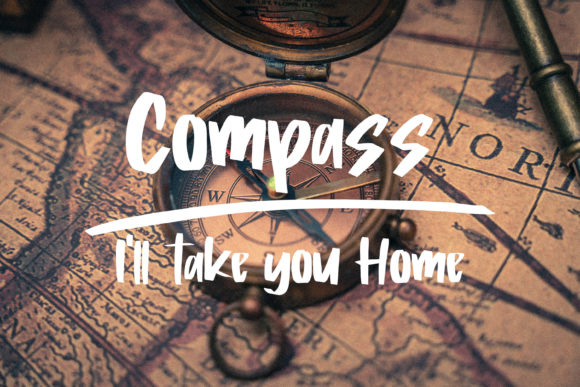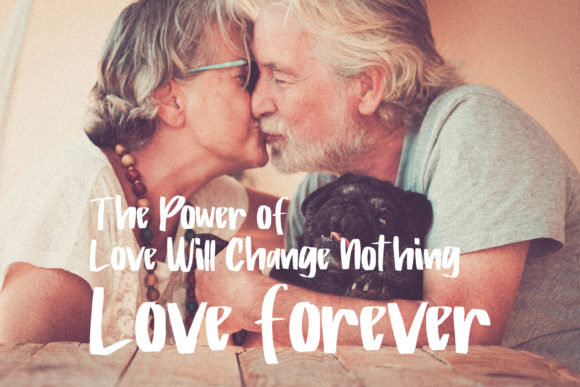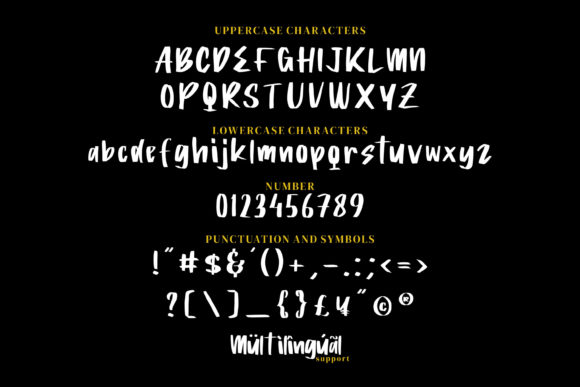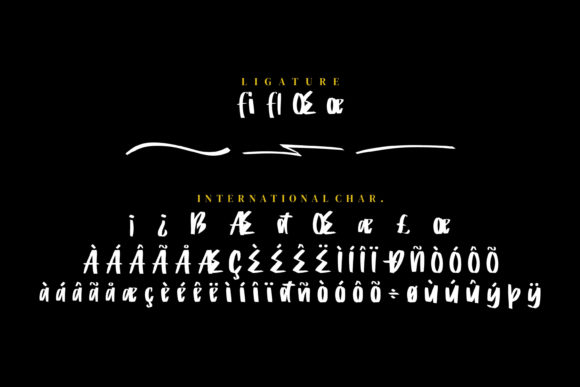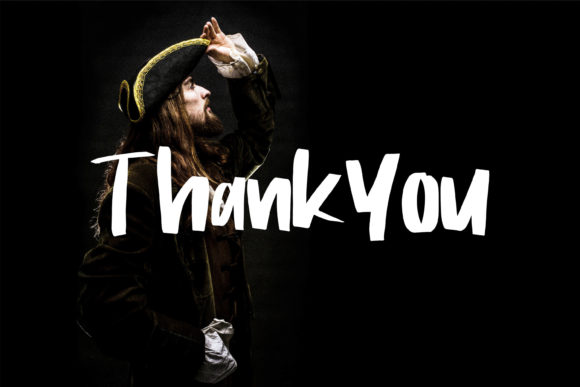
Introduction to Roger Bold Font
As designers, we’ve all been there – staring at a blank canvas, trying to bring our vision to life. It’s the moment when the perfect font can make all the difference. And that’s where Roger Bold Font comes in – a cool, relaxed, and brushed handwritten font that’s perfect for adding a touch of personality to your creative project.
With its smooth curves and elegant feel, Roger Bold Font is a valuable addition to any designer’s toolkit. Whether you’re working on a fashion branding project or an editorial design, this font is sure to elevate your work. And the best part? It’s available for free download, making it an essential design resource for anyone looking to add a high-quality touch to their projects.
One of the standout features of Roger Bold Font is its transparent background, allowing you to easily overlay it on top of other design elements. This level of flexibility makes it a must-have for designers who want to add a creative twist to their work without sacrificing quality. So why settle for a generic font when you can add a bit of personality to your designs with Roger Bold Font?
Key Features of Roger Bold Font
- High-quality font with a unique, bold design perfect for creative projects.
- Comes with a transparent background, allowing for easy customization and layering.
- Unique characteristics: Distinctive letterforms, bold strokes, and a striking aesthetic that adds visual impact to any design.
Honest Review: Roger Bold Font
As a designer, I’ve had the pleasure of working with numerous fonts, and I’m excited to share my thoughts on the Roger Bold Font. This free download has quickly become a staple in my design resource arsenal.
- High-quality typography that elevates any creative project
- Sturdy, bold lines that add a touch of sophistication
- Perfect for headings, titles, and other prominent text elements
What I love most about the Roger Bold Font is its versatility. It works well for both digital and print projects, making it a valuable asset for any designer.
One of the standout features of this font is its transparent background, which allows for seamless integration with any design element.
While I have no major complaints, I do wish there were more font weights available to provide more flexibility in my design work.
Overall, I’m thoroughly impressed with the Roger Bold Font. It’s a high-quality, creative resource that I’ll continue to rely on for all my design projects.
The Roger Bold Font is commonly used in creative projects, such as logos, branding materials, and marketing materials. Its high-quality design makes it perfect for use in a variety of contexts, from print to digital.